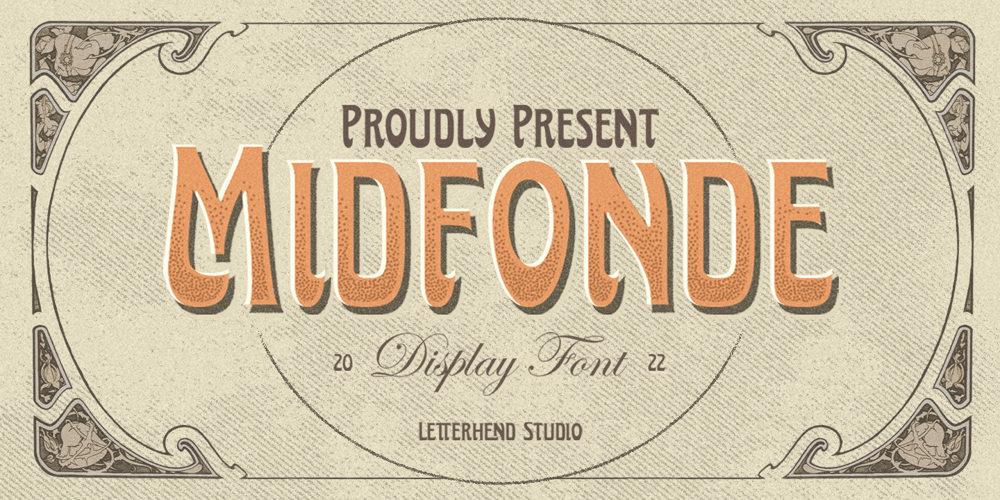
Midfonde Font Family was designed by Hendry Juanda and published by Letterhend. Midfonde contains 1 styles and family package options. Midfonde is a display typeface inspired by art deco style. This type of font perfectly made to be applied especially in logo, headline, signage and the other various formal forms such as invitations, labels, logos, magazines, books, greeting / wedding cards, packaging, fashion, make up, stationery, novels, labels or any type of advertising purpose.Features : uppercase & lowercase numbers and punctuation multilingual alternates / swashes and ligatures PUA encoded We highly recommend using a program that supports OpenType features and Glyphs panels like many of Adobe apps and Corel Draw, so you can see and access all Glyph variations.=